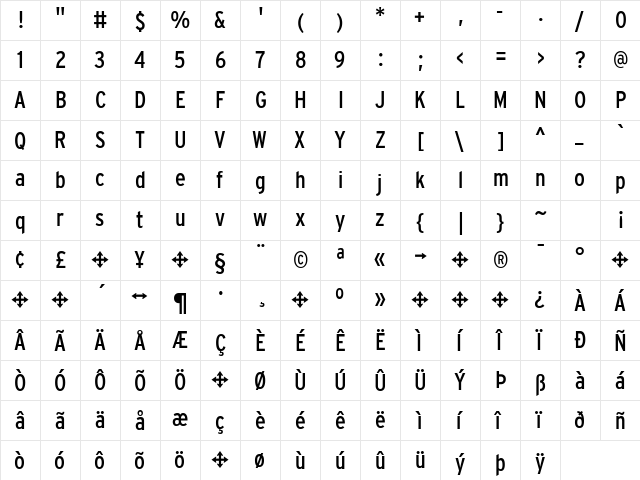
Interstate RegularCondensed
Design Context for Interstate Typeface
Interstate is a composed and adaptable typeface that performs quietly and consistently across a wide range of design contexts. The condensed width makes it efficient for tight spaces without sacrificing legibility.